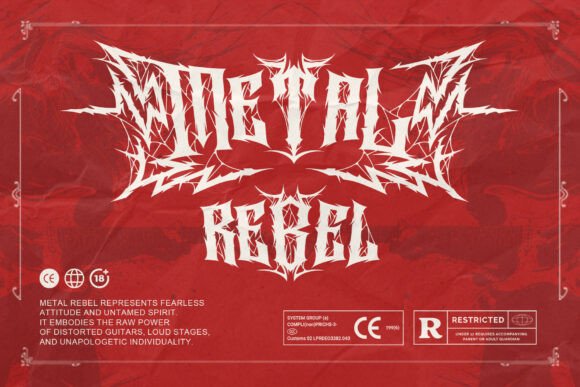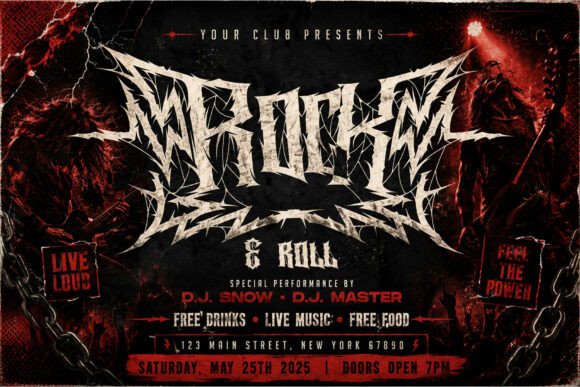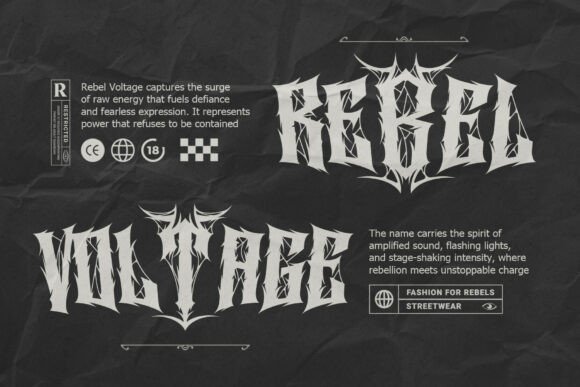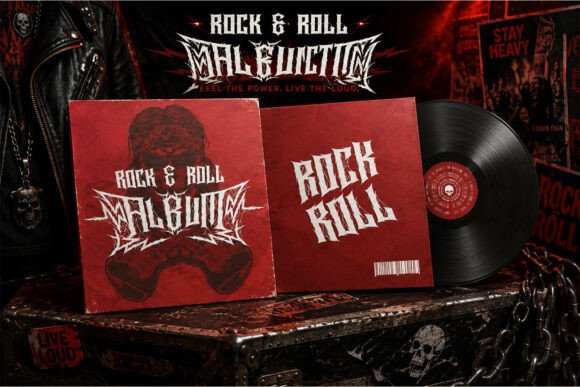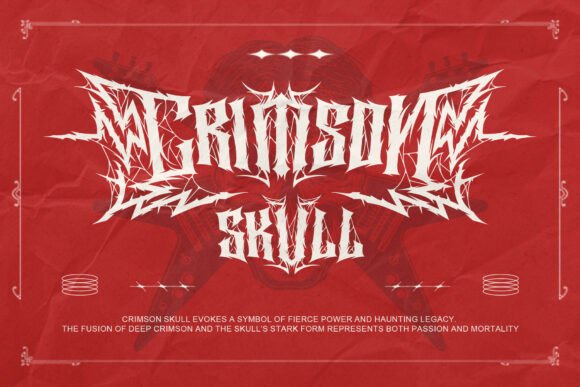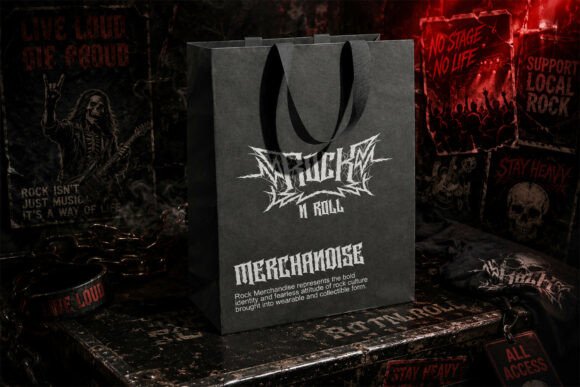
Unleashing the Fury of Ravok Font
Have you ever stumbled upon the perfect font for your creative project, only to have it elevate your entire design to the next level? That’s what happened to me when I discovered the Ravok Font. Its raw, unapologetic energy spoke directly to my soul, and I knew I had to dive deeper into its world.
As a designer, I can attest that finding the right font can be a game-changer. It’s not just about aesthetics; it’s about conveying the tone and message of your project. And that’s where Ravok Font comes in – a high-quality, free download that’s ready to take your design to the next level. With its transparent background and razor-sharp letterforms, Ravok Font is the perfect design resource for any creative project that demands a bold, fearless presence.
From album covers to gaming titles, and from merchandise to event posters, Ravok Font is the ultimate tool for designers who want to make a statement. Its versatility and raw energy make it an invaluable asset for any creative project, and I’m excited to share more about this incredible font with you.
Key Features of Ravok Font
- High-quality design resource with a unique and creative style, perfect for various projects.
Honest Review: Ravok Font
I recently stumbled upon the Ravok Font, and I’m excited to share my thoughts on this design resource. The first thing that caught my attention was its high quality and versatility.
Here’s what works well:
- ✨ Unique and creative design that adds a touch of elegance to any project
- ✨ Transparent background, making it easy to use in various design scenarios
However, there are a few limitations I’d like to mention:
- ⚠️ Limited font styles available, which might not be suitable for complex designs
- ⚠️ Not suitable for very large or complex texts, as it may lose its readability
Overall, I’m impressed with the Ravok Font’s design and functionality. It’s a great addition to any designer’s toolkit, especially for creative projects that require a touch of sophistication. While it may not be perfect, its unique design and free download make it a worthwhile resource to explore.
Tips for Getting the Most Out of Ravok Font
To get the most out of the Ravok Font, consider using it in conjunction with other design elements, such as images and graphics. This will help create a cohesive and visually appealing design. Additionally, be sure to experiment with different font sizes and colors to achieve the desired effect.
The Ravok Font is commonly used in a variety of creative projects, including logos, business cards, and presentations. Its high quality and transparent background make it an excellent choice for designs that require a touch of sophistication and elegance.